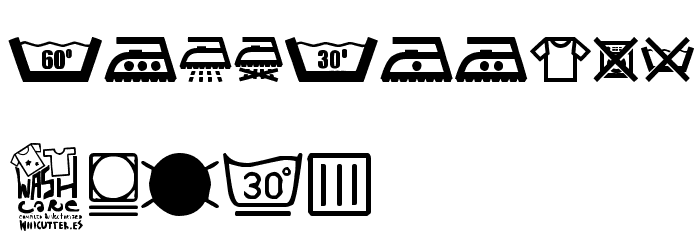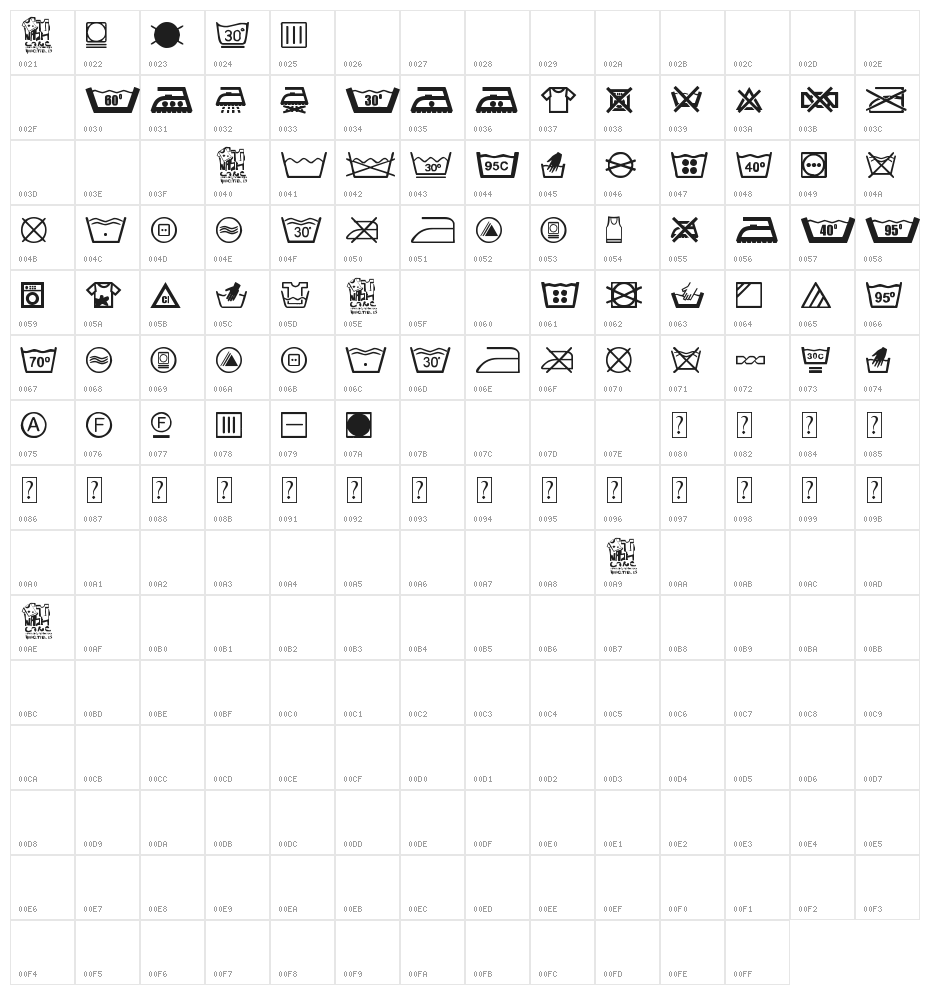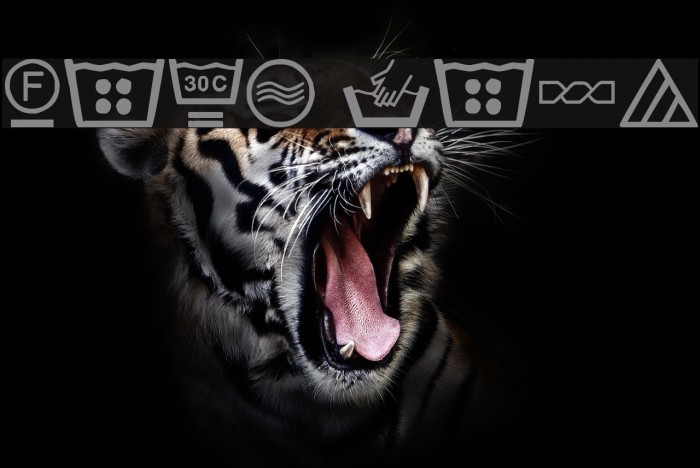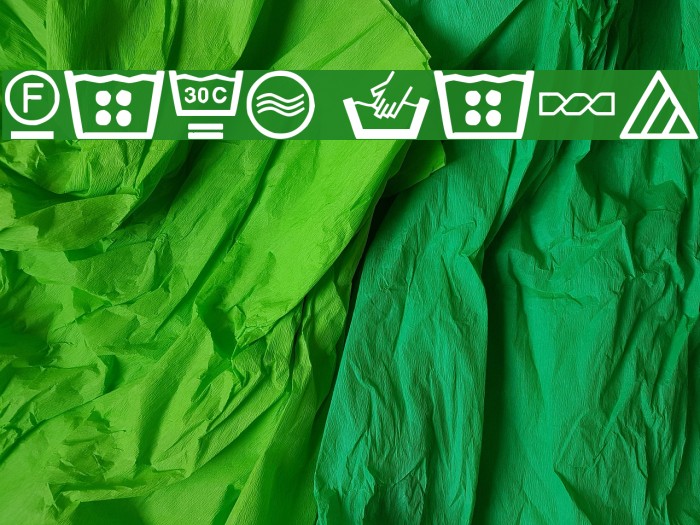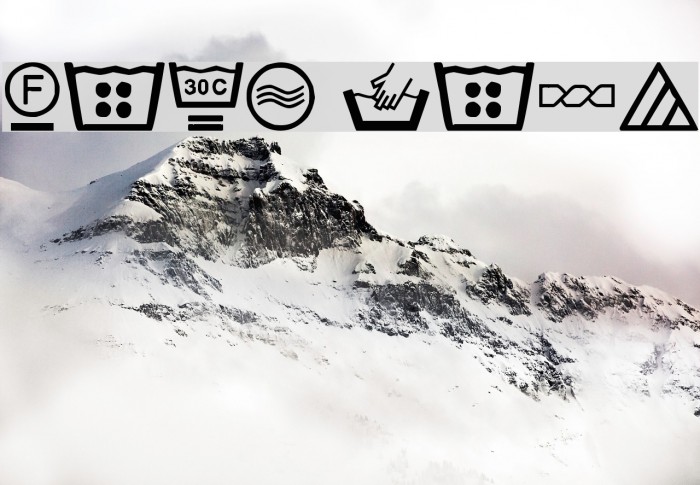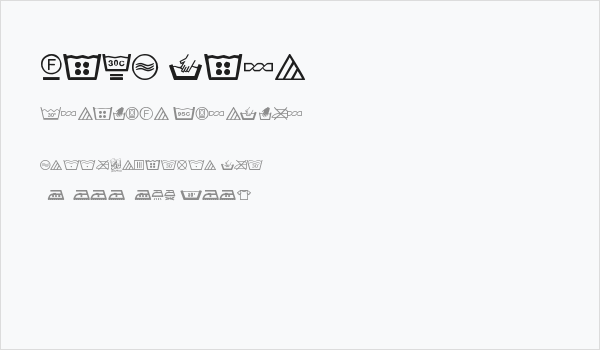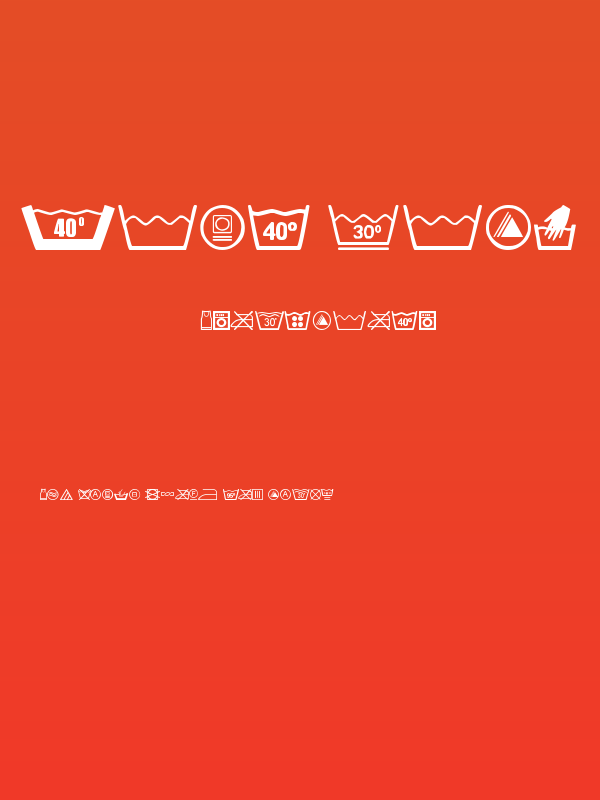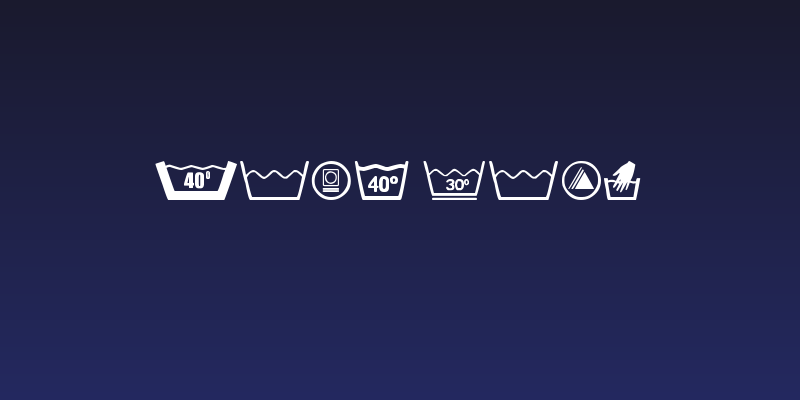
wash care Font
wash care Description
A pictogram-based dingbat font featuring various laundry and wash-care symbols, including washing instructions, ironing, drying, bleaching, and dry cleaning icons. The glyphs are bold, geometric, and highly legible, designed for clear communication of garment care instructions.
| Overall Style | Functional, Modern, Iconographic |
| Use Case | Labels, Icons, Instructional graphics |
| Proposed Projects | Clothing labels, garment tags, instruction manuals, textile packaging, infographics. |